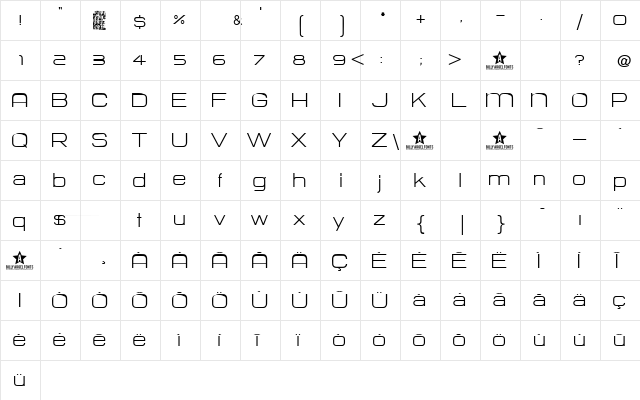
HURTMOLD_ Regular
Design Context for HURTMOLD_ Typeface
HURTMOLD_ takes a measured approach to typography — its balanced proportions and neutral character make it a reliable workhorse for both digital and print work.